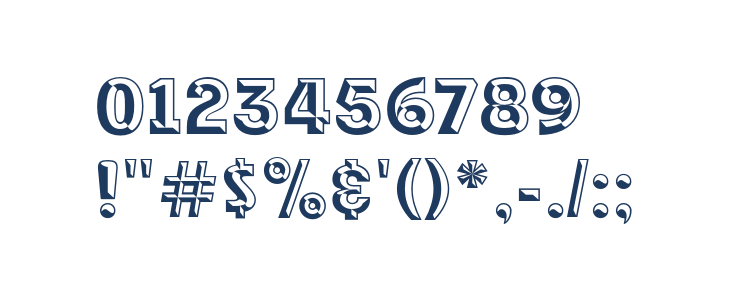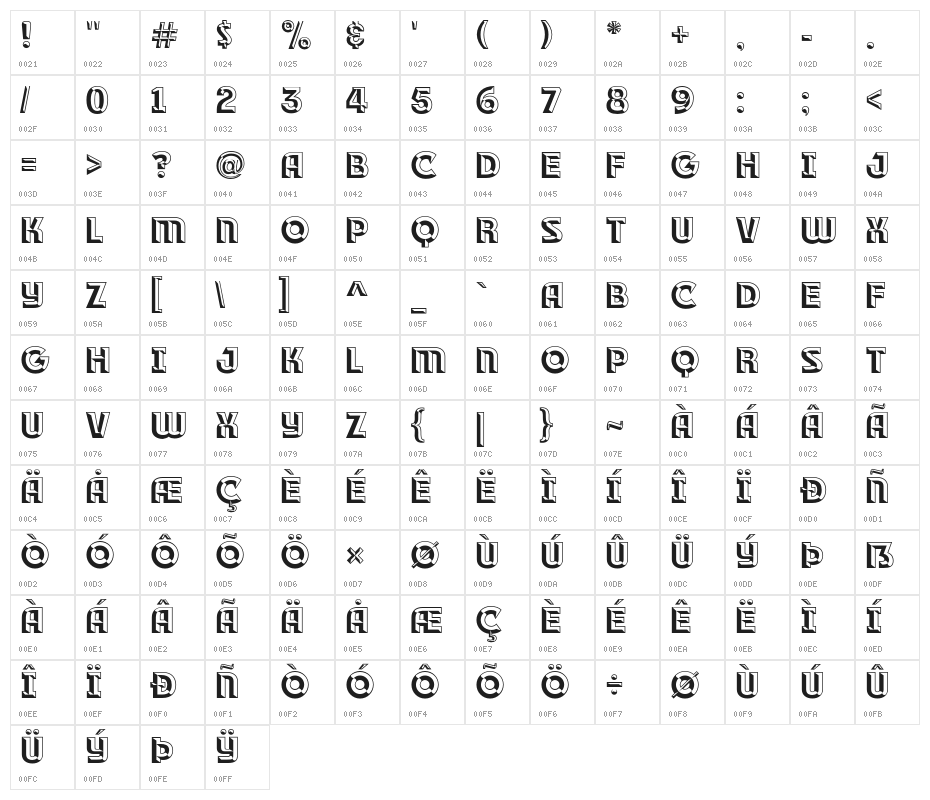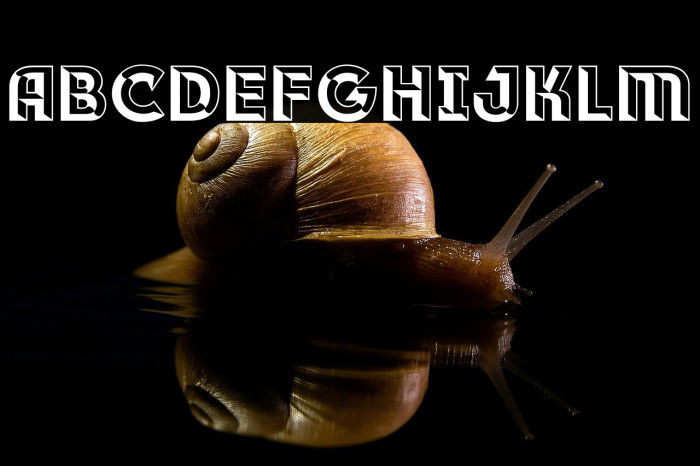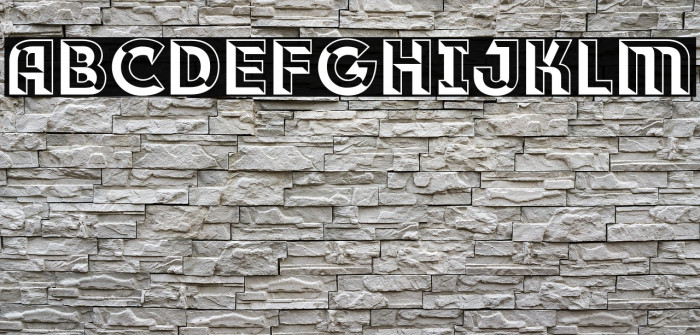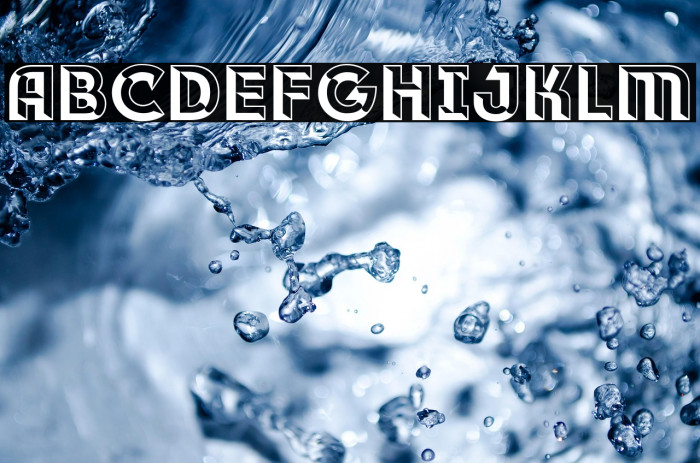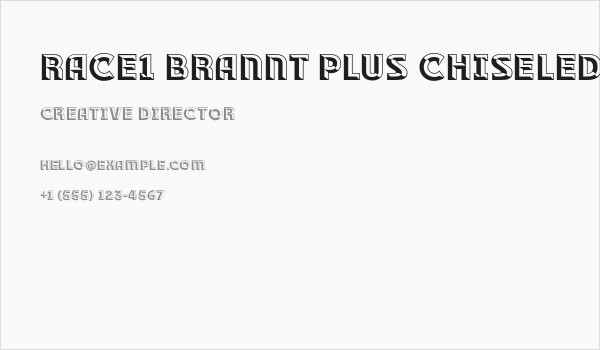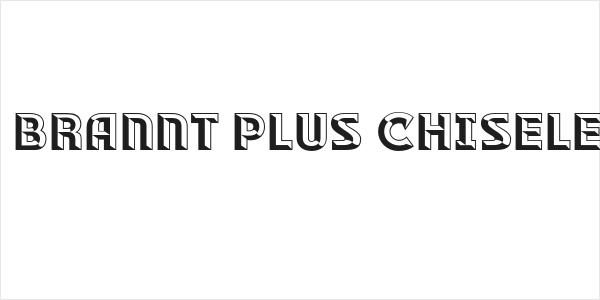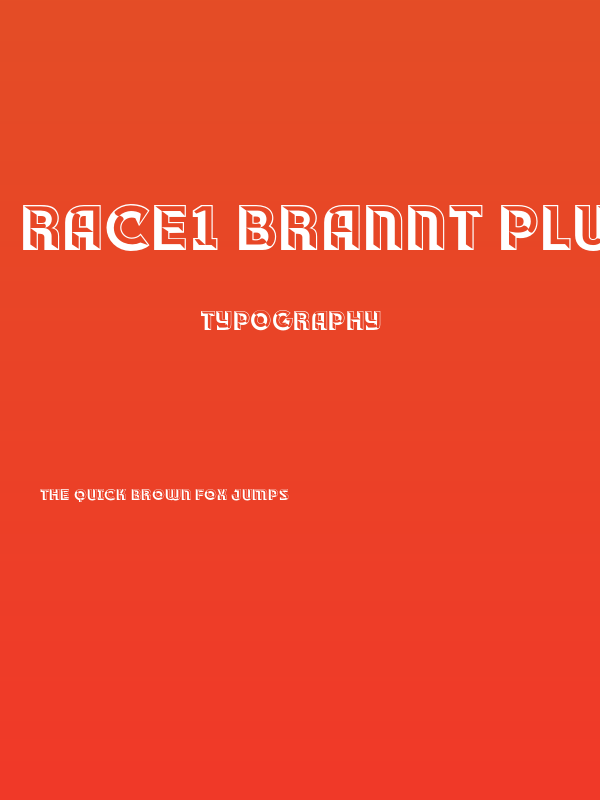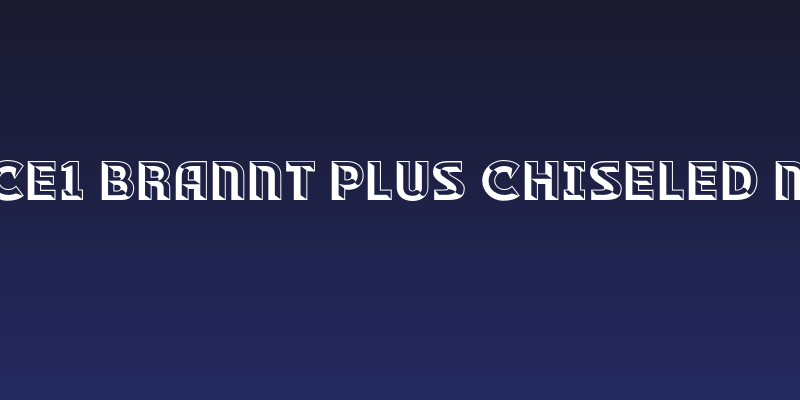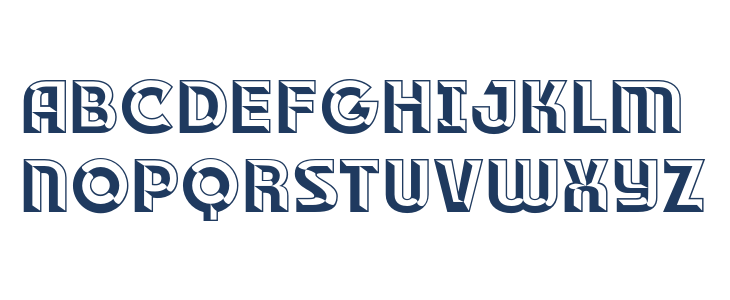
RACE1 Brannt Plus Chiseled NCV Font
RACE1 Brannt Plus Chiseled NCV Description
This font features a bold, chiseled appearance with a three-dimensional effect that gives each character a sense of depth and solidity. The uppercase letters are particularly striking, with sharp angles and clean lines that create a strong visual impact. The lowercase letters maintain the same bold style, ensuring consistency across the typeface. Numbers and special characters are designed with the same attention to detail, making them stand out in any composition. The font's unique style is reminiscent of vintage signage or classic movie posters, offering a nostalgic yet modern feel. Its boldness and distinctiveness make it ideal for projects that require a strong visual presence.
| Proposed Projects | Perfect for vintage-themed posters, logos, headlines, and branding materials that require a strong, eye-catching typeface. |